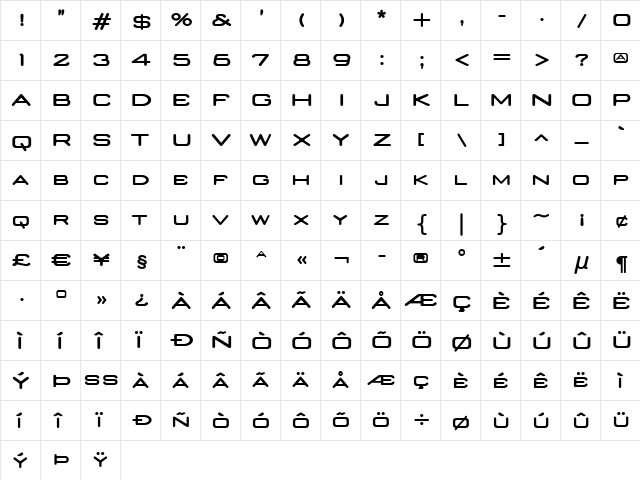
Nedian Medium
Design Context for Nedian Typeface
Nedian offers clean, dependable letterforms without strong stylistic allegiance, making it a practical choice for designers who need flexibility.